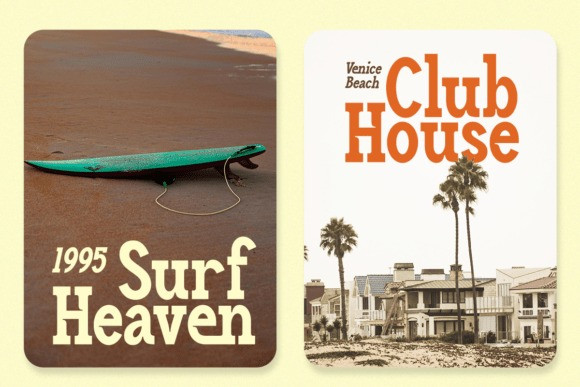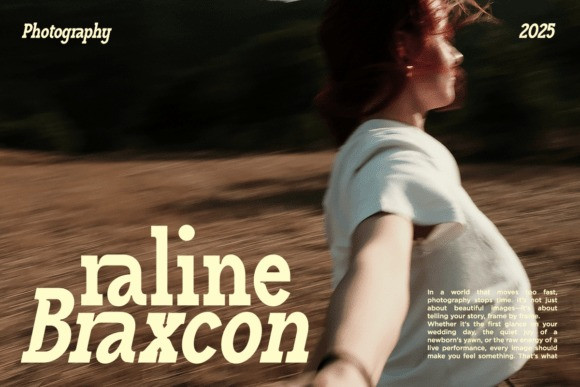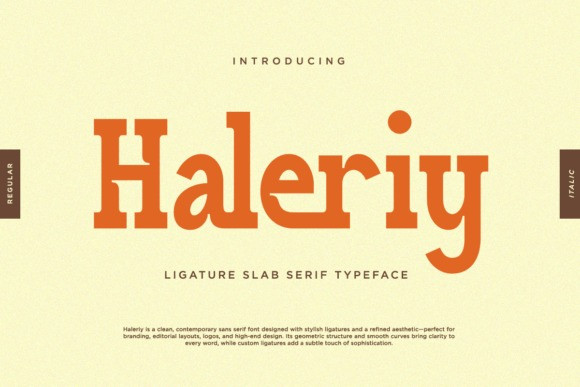
Haleriiy Font
Haleriy Font is a stylish slab serif font that blends vintage strength with inktrap style . Perfectly suited for headlines, branding, logos, packaging, and editorial layouts, it’s crafted to leave a lasting impression. With slab serifs, solid structure, and impactful letterforms, and inktrap style complementing its versatility, the typeface offers ligatures character stylistic sets, further expanding its expressive potential for any design project.